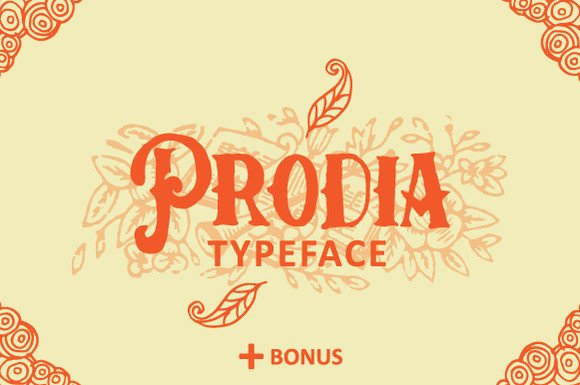
Venture into the realm of timeless elegance with Prodia Font, a display font family that exudes Victorian charm. Meticulously crafted by the talented Ian Mikraz, this handmade typeface transports you back to an era of sophistication and refinement. With its intricate details and captivating aesthetic, Prodia Font is the perfect choice for designers seeking to add a touch of vintage allure to their projects.
Immerse yourself in the versatility of Prodia Font, seamlessly adapting to a myriad of creative endeavors. Whether you're designing captivating headings, crafting unique logos, or creating eye-catching invitations, Prodia Font effortlessly elevates your designs. Its timeless appeal shines through in t-shirt designs, greeting cards, posters, and labels, adding a touch of elegance to every project. Experience the beauty of Prodia Font in book covers, brochures, and countless other applications, leaving a lasting impression on your audience.
Unleash your creativity with Prodia Font, a font family that empowers you to express your individuality. Its Victorian-inspired charm evokes a sense of nostalgia, while its versatility allows you to explore a boundless spectrum of design possibilities. Embrace the artistry of Prodia Font and let your imagination soar, leaving an indelible mark on the world of design.